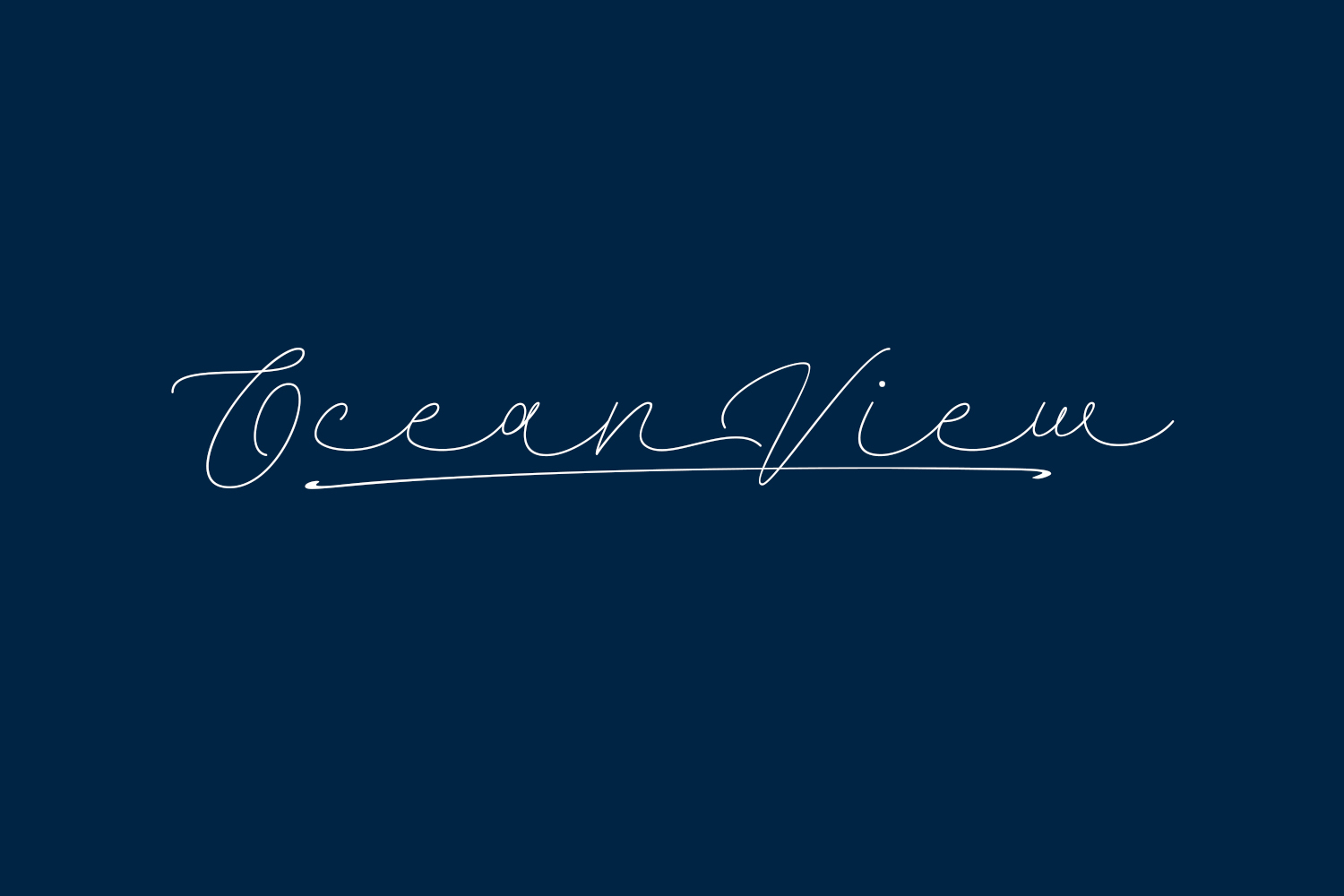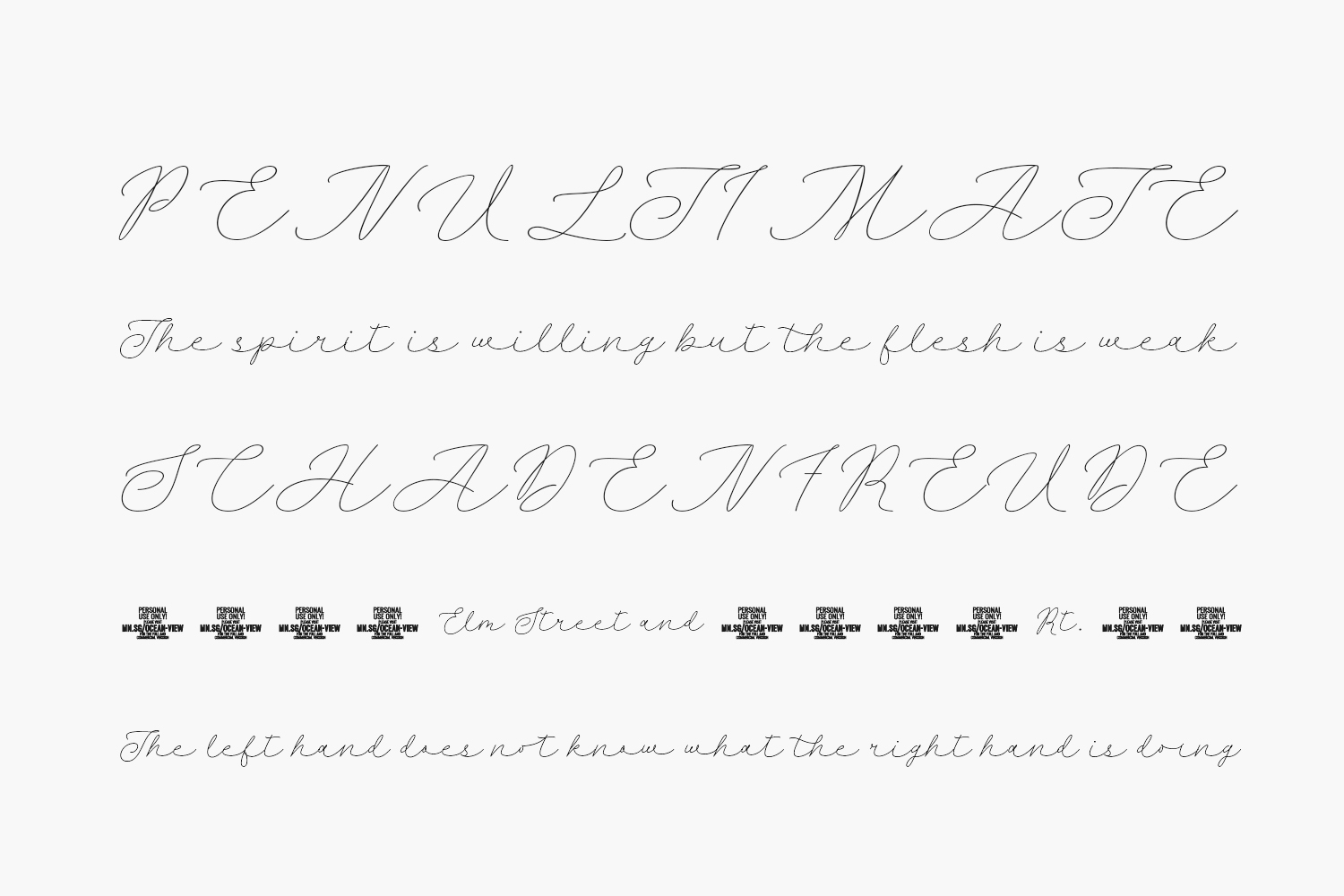
Introducing Ocean View Free Font, a typeface that will transport you to the serene and tranquil atmosphere of the ocean. Each character is hand-drawn with a fluidity that mimics the ebb and flow of the tides, while the elegant curves and loops evoke the graceful movements of sea creatures. Whether you’re creating a logo, designing a website, or crafting a special message, Ocean View’s script style will bring a touch of coastal charm and sophistication to your project. Dive into the beauty of this handwritten font and let it carry you away to a world of calm and creativity.